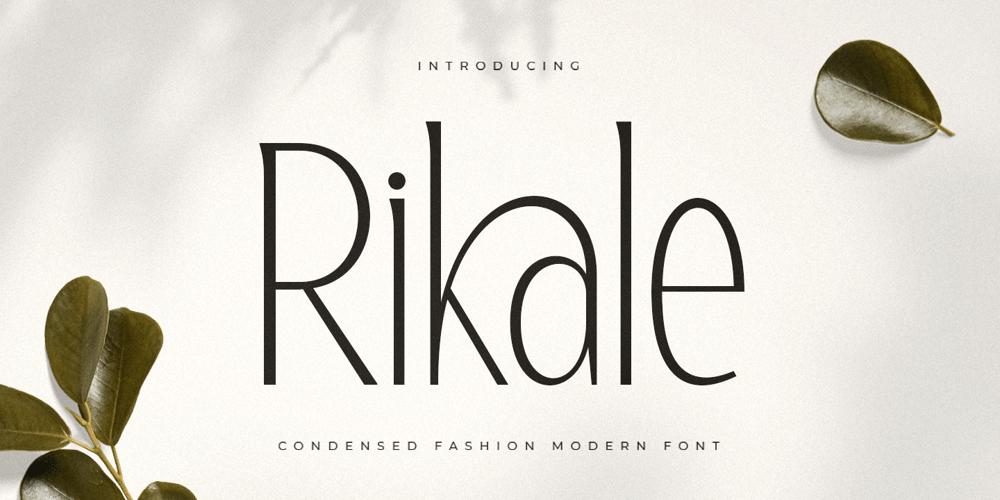
Rikale
Rikale font
Rikale Font Family was designed by Zamroni Hamzah and published by Sensatype Studio. Rikale contains 1 styles and family package options. A Fashion Modern serif font that we created special for elegant branding needs, with extra alternates in unique shape will be ready to add value of your brand. It so nice to leverage designer or product owner that need solutions to make their design look more classy and modern. And specially for Gingka font, We prepared any alternate characters to help you create unlimited variations for your creative needs.Rikale Condensed Fashion Modern Font ready with: Any options to get creative variations (combination of Alternate characters) Preview as a inspirations that you can do with Rikale font Ready with Lowercase and Uppercase characters Wish you enjoy our font. ๐Ÿ™‚